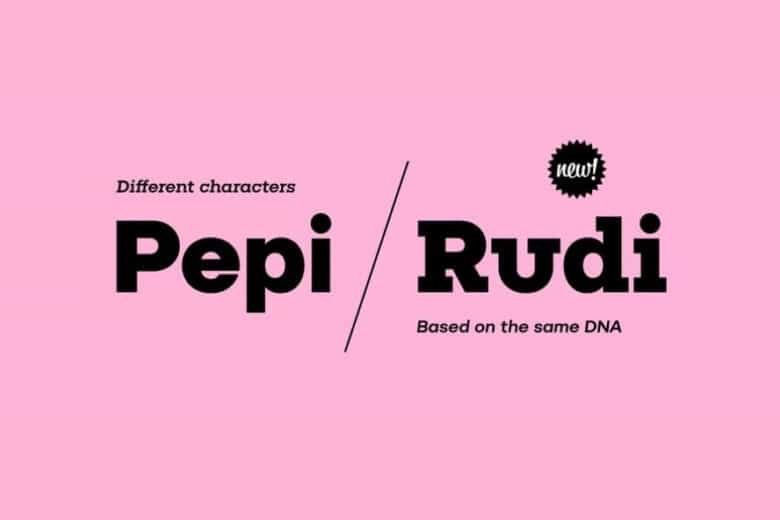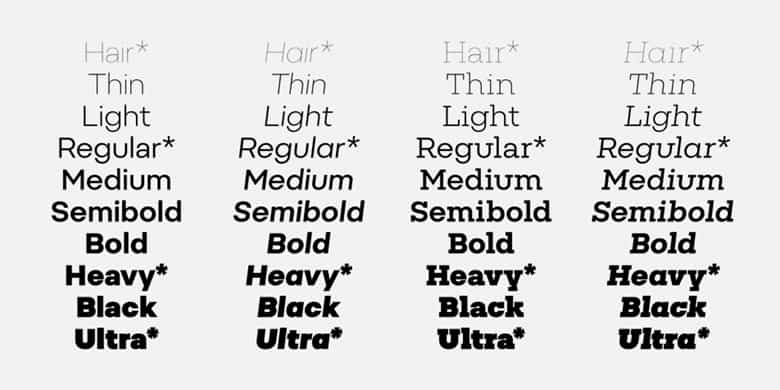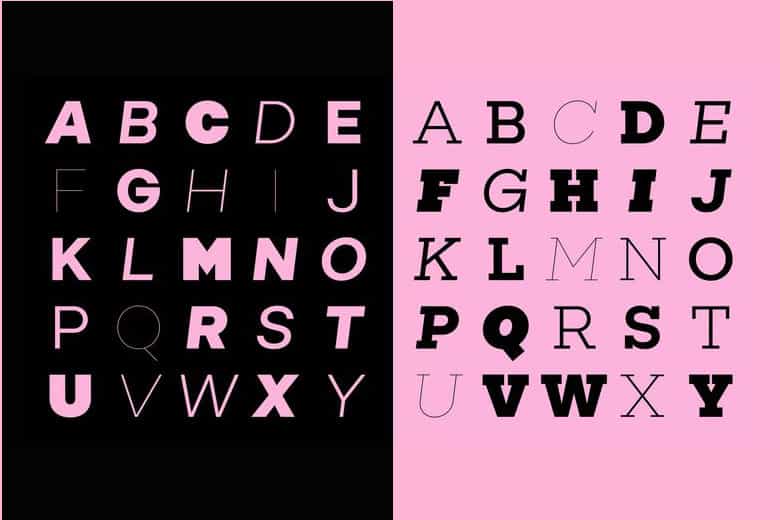
Pepi/Rudi is a modern humanist geometric sans & slab duo font family with friendly design that seems inviting for people. The Pepi and Rudi brings some of the modern features into a well tested format of naively designed typefaces. Some changes increase some aspects of tune while elsewhere, there are increased differences in width for more irregular type; the character set has been enlarged and the legibility enhanced by higher lower case of height.